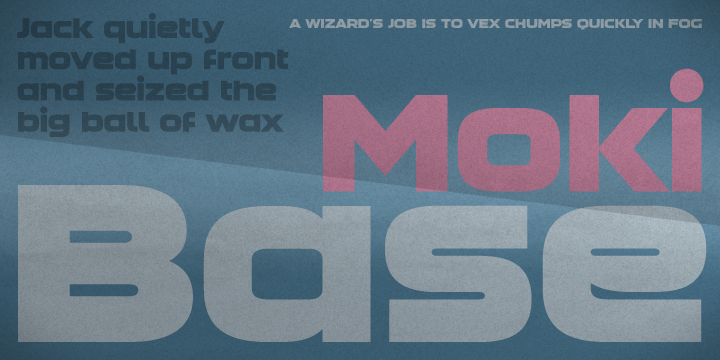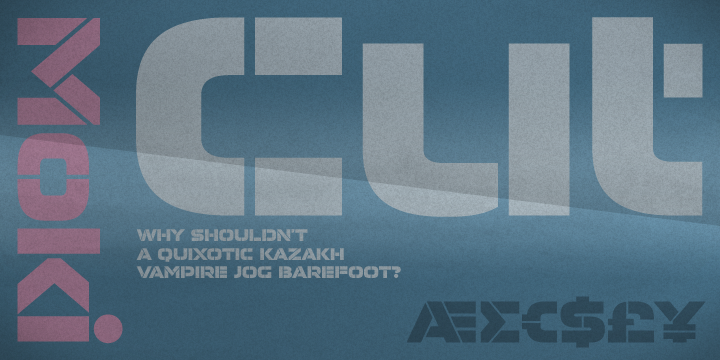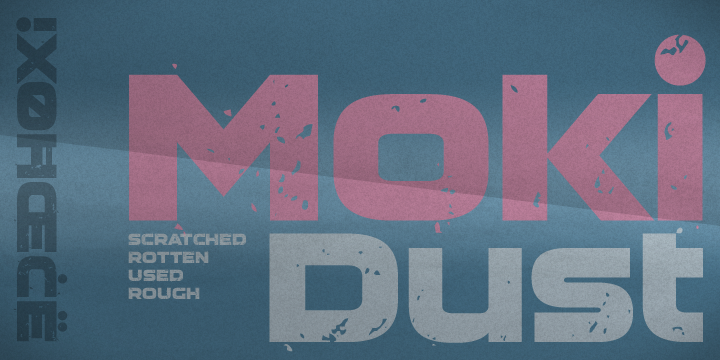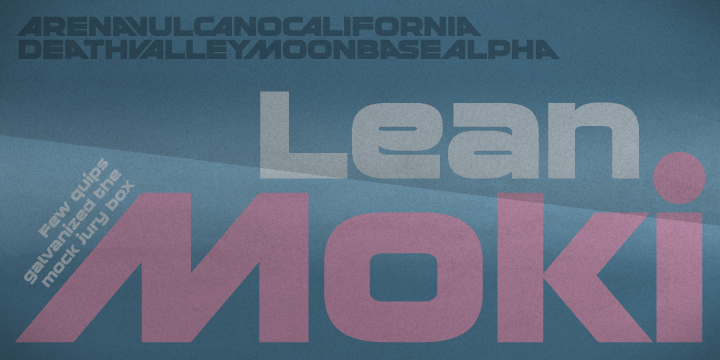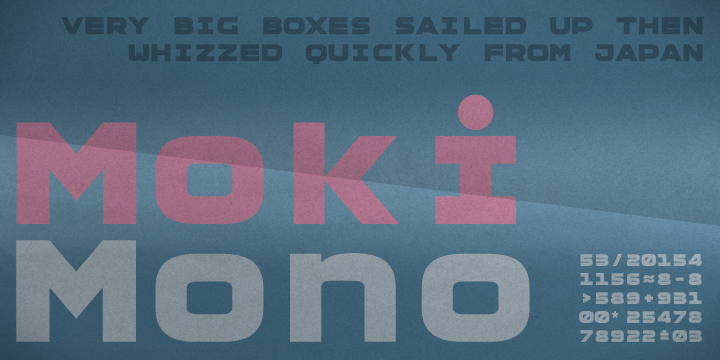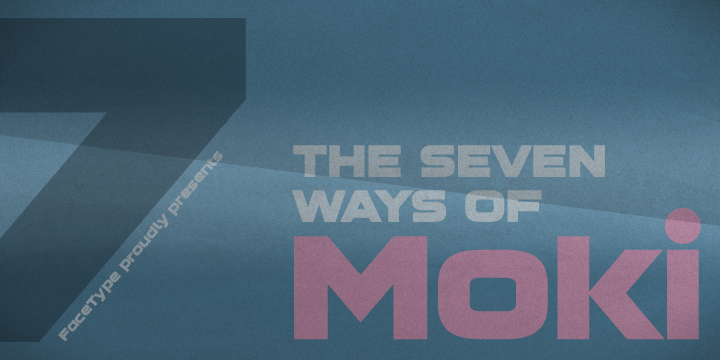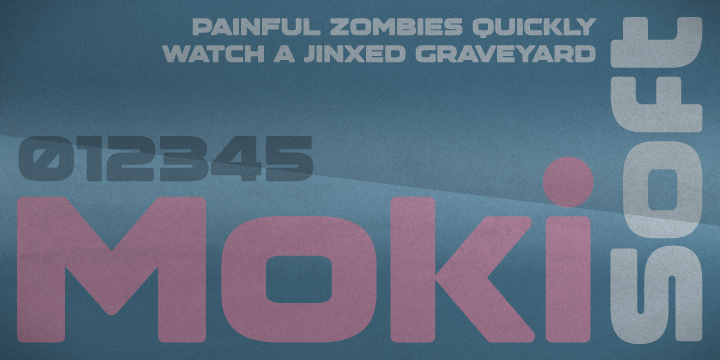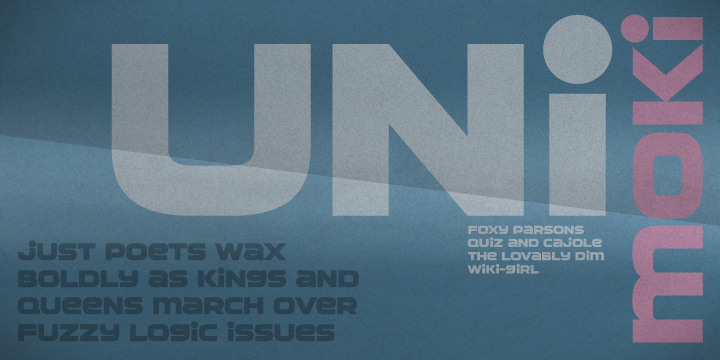
Moki comes in seven different styles: Base, Cut, Dust, Lean, Mono, Soft and Uni. Moki is a display expert – with a wide range of languages covered, the family offers a style for every purpose.
Marcus Sterz